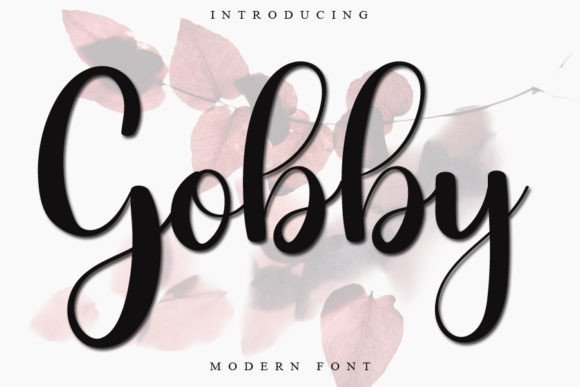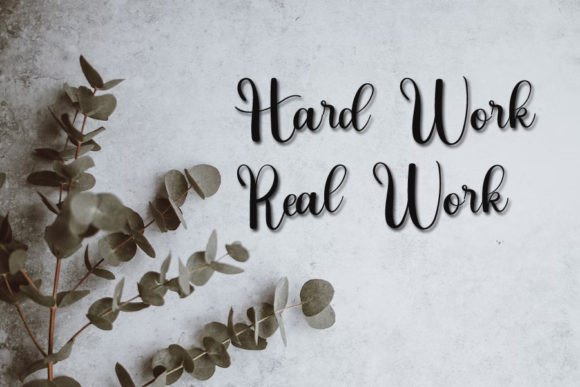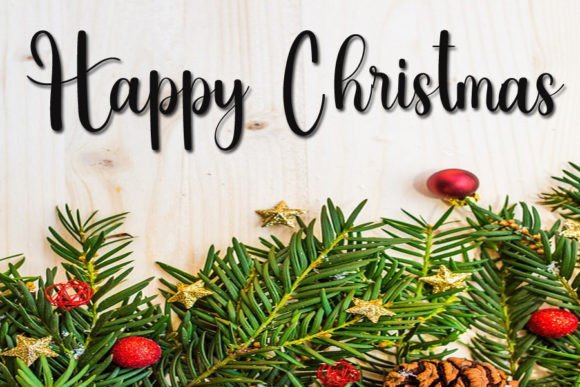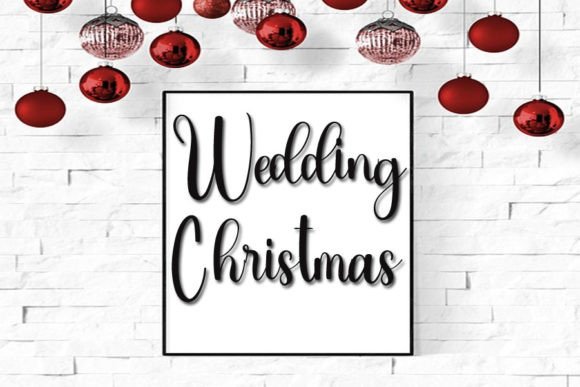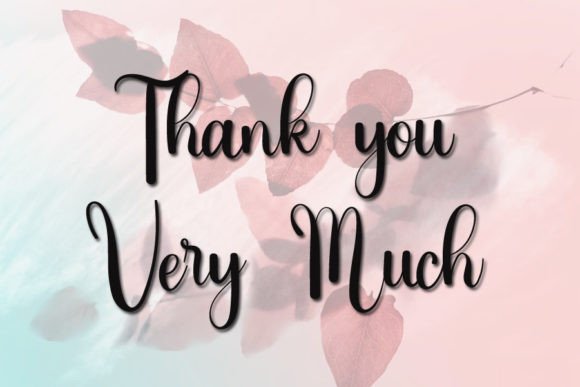
Gobby Font
About Gobby Font
“Gobby” is a lovely and delicate script font that radiates elegance and sophistication. It is meticulously crafted to bring a beautiful and refreshing look to your designs, making it a perfect choice for various creative projects.
The elegance and class conveyed by “Gobby” make it suitable for a wide range of design applications. Whether you’re working on invitations, branding materials, packaging, or any project that demands a touch of refinement, this font’s graceful script style can elevate your work to a higher level of sophistication.
One of the standout features of “Gobby” is its ability to infuse a sense of beauty and grace into your designs. Its carefully designed characters flow seamlessly, creating a visually pleasing and harmonious typography that captures the eye.
“Gobby” is crafted to add a touch of timeless elegance to your creative works. Its delicate and flowing script allows you to achieve a look that is both beautiful and refreshing, making it a valuable asset for designers seeking a font that exudes sophistication and class.
In summary, “Gobby” is a lovely and delicate script font that enhances your designs with its elegant and refreshing style. Its versatility makes it suitable for a wide range of creative projects, from invitations to branding and beyond. When you choose “Gobby,” you’re selecting a font that brings a sense of beauty and sophistication to your work, ensuring it stands out with its timeless and graceful allure.